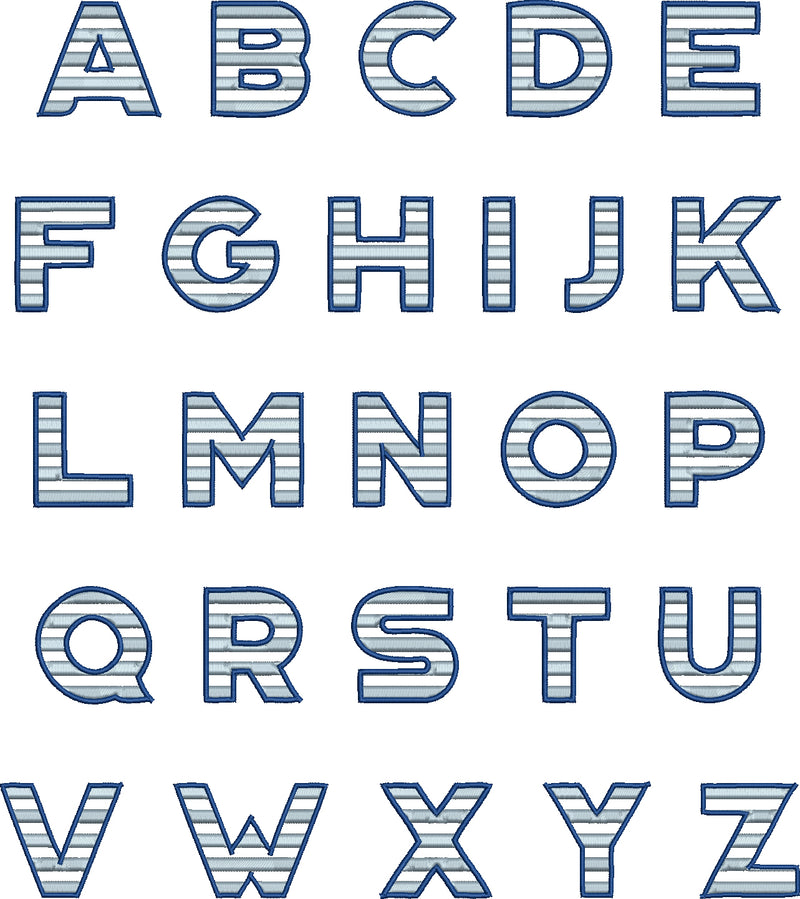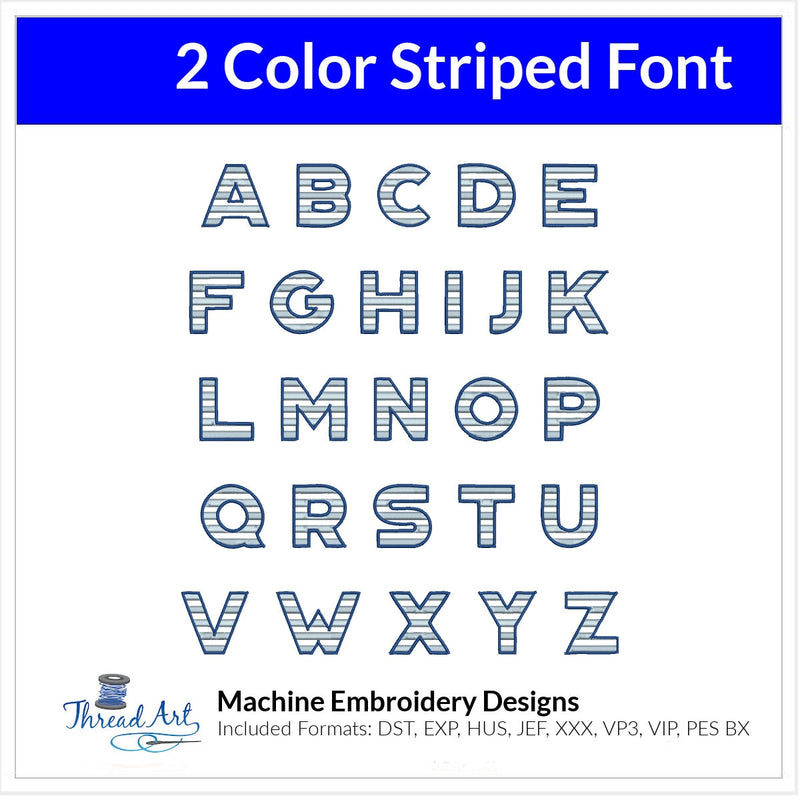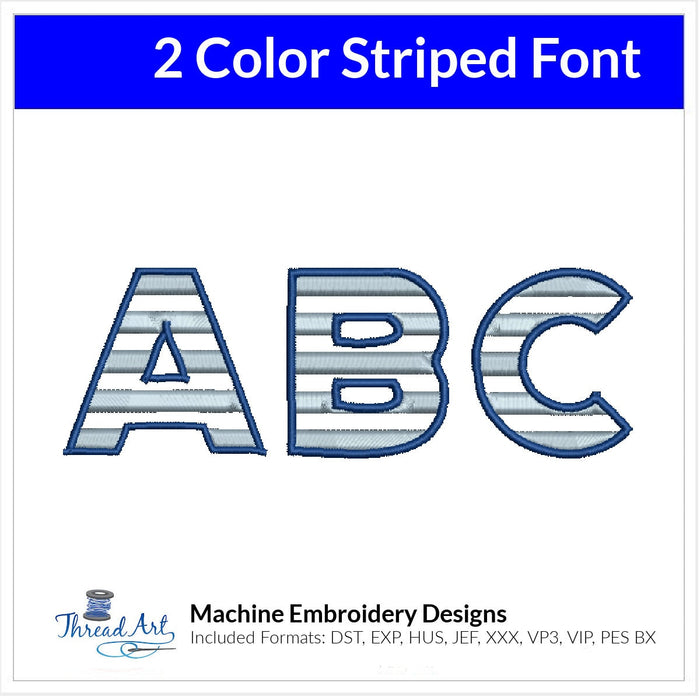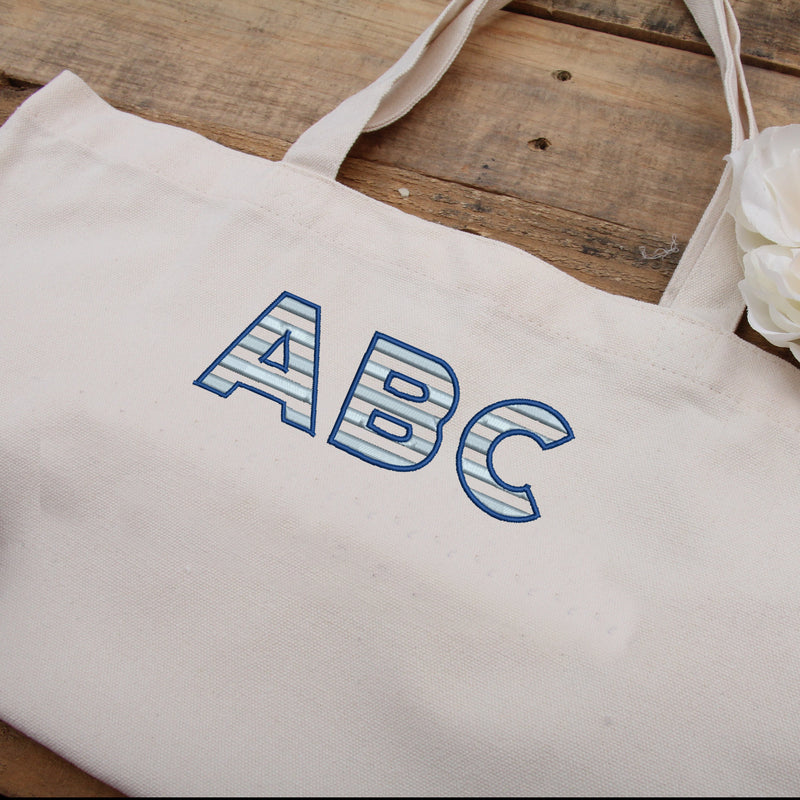
Two Color Striped Font Design -- Machine embroidery font design set with different design sizes included. Letters are 6", 4", 3" and 2" tall and includes uppercase monogramming style in popular formats: DST, EXP, HUS, JEF, PES, XXX, VIP, VP3, BX. Convenient for those with multiple machines. Designs will be available for instant download.  Choose physical USB stick to have designs sent via mail on a usb stick.